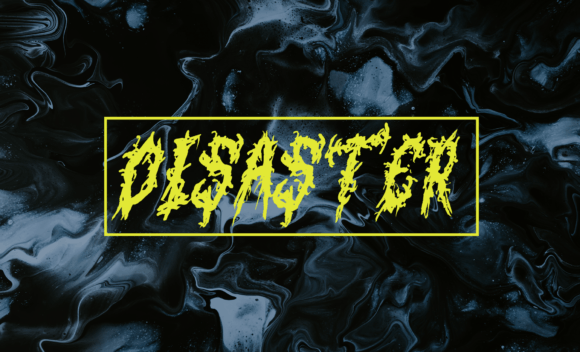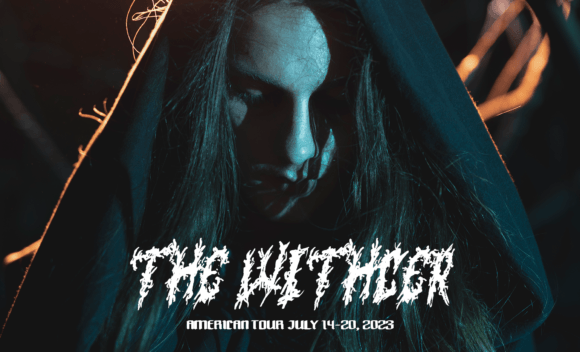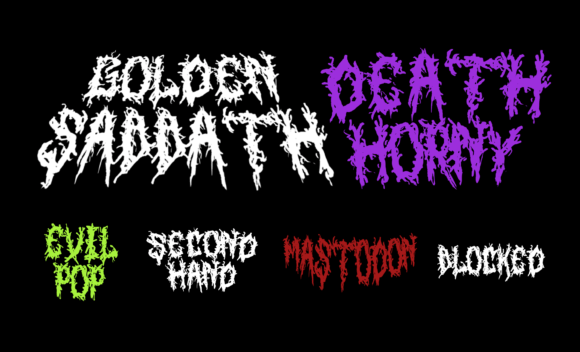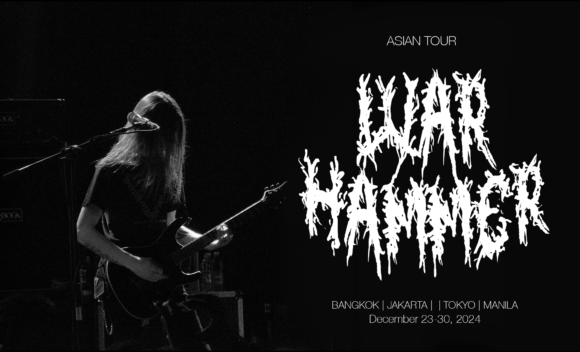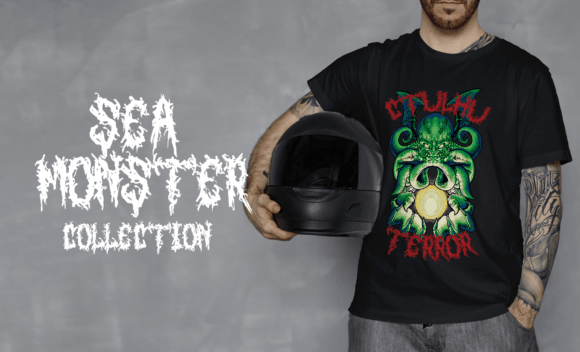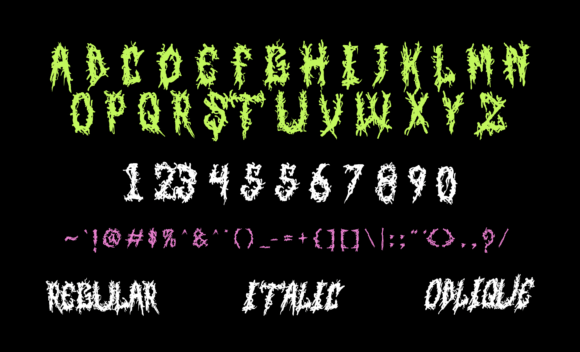
Unleash the Darkness: Discover the Evil Pop Font
I’ll never forget the moment I stumbled upon the perfect font for a dystopian metal band project. I was working late, surrounded by empty coffee cups and scattered design notes, trying to find a font that captured the dark, twisted vibe of death metal. The struggle was real – I had scoured the internet, tried countless fonts, but nothing seemed to fit the bill. That was until I discovered Evil Pop, a game-changing font that instantly elevated my design to the next level.
A Font that Embodies the Dark Side
Evil Pop is more than just a font – it’s an experience. With its trashy and stylized design, it perfectly captures the dark, twisted essence of death metal. This font is ideal for display, logotypes, titles, headlines, album covers, and more. Whether you’re a designer, crafty hobbyist, or a metal band looking to revamp your brand, Evil Pop is the ultimate choice.
- ✨ Unique and edgy design that instantly grabs attention
- ✅ Perfect for creating bold, eye-catching headlines and titles
- ✅ Works beautifully for display, logotypes, and album covers
- ✅ Easy to read, even at smaller font sizes
While Evil Pop is an exceptional font, there are a few minor quirks to be aware of:
- ⚠️ Some characters may appear a bit distorted at very small font sizes
- 🤔 Limited support for non-English characters
The Backstory Behind Evil Pop
Evil Pop was designed with the metal music scene in mind. The font’s creator, a metalhead and designer, wanted to craft a font that embodied the dark, rebellious spirit of death metal. Inspired by the raw energy and aggression of the genre, Evil Pop was born – a font that’s equal parts menacing and mesmerizing.
Q: What type of projects is Evil Pop best suited for?
A: Evil Pop is perfect for projects that require a bold, edgy look, such as metal band logos, album covers, and dark-themed designs.
Q: Is Evil Pop compatible with non-English characters?
A: While Evil Pop supports many languages, it has limited support for non-English characters. Please check the font’s documentation for specific details.